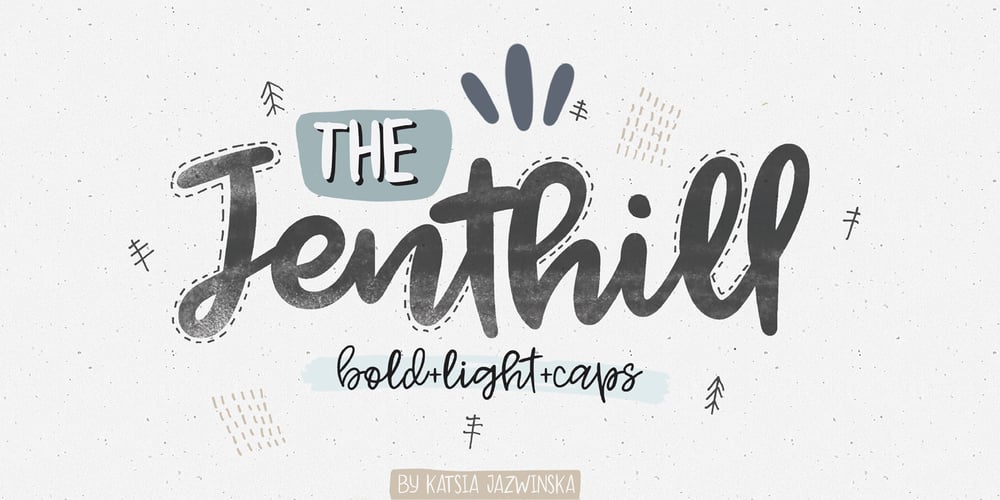
Jenthill Font Family was designed by Katsia Jazwinska and published by Katsia Jazwinska. Jenthill contains 4 styles and family package options. Introducing Jenthill – a lovely font family which includes 4 font styles: – a wonderful script typeface Jenthill – Jenthill Light – a delicate version of Jenthill – 2 uppercase fonts Jetnthill Caps and Jenthill Light Caps which are perfect for headings. Each font consists of about 380 glyphs and includes basic punctuation, numbers, roman typeface and international characters, so the font can be used with most of the European languages. Each font in this family is amazing in itself and perfectly combined with each other. So, if you are looking for a font that simulates the soft-edged handwriting, the Jenthill is just for you! Every letter of this font has been carefully crafted to look wonderful and helps you to add a little fancy to your work.